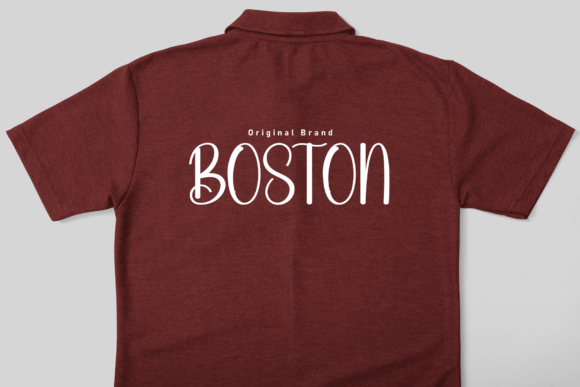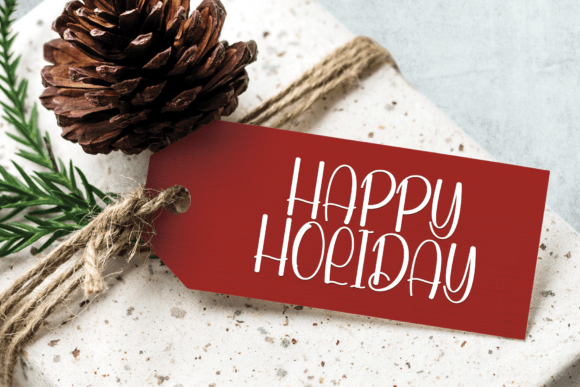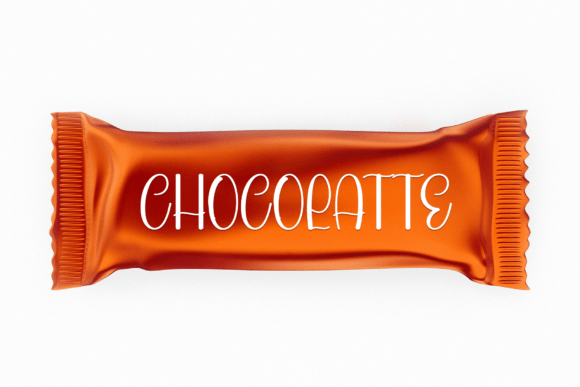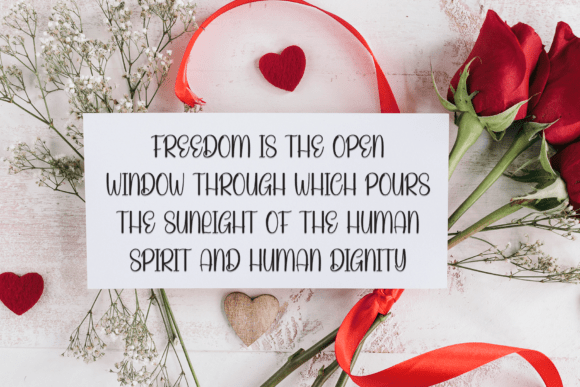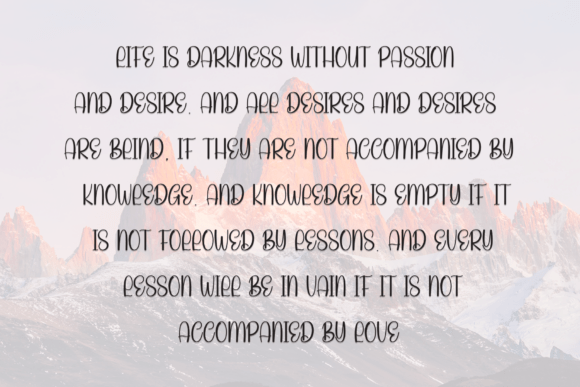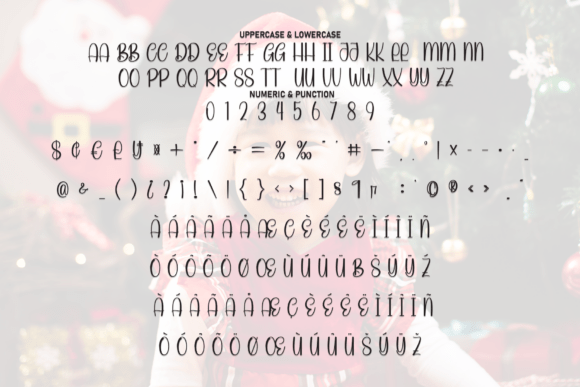
Introduction to Children Christmas Font
As designers, we’ve all been there – staring at a blank canvas, trying to spark the perfect idea for a creative project. The moment of inspiration finally hits, and you envision a beautiful design that screams joy and celebration. For many, this feeling is synonymous with the magic of the holiday season. Introducing the enchanting Children Christmas Font, a handcrafted display font that embodies the essence of merriness and liveliness.
With its whimsical charm and effortless elegance, this font is an invaluable design resource for any project that demands a touch of whimsy. Whether you’re crafting wedding invitations, holiday cards, or simply looking to add a dash of festive flair to your designs, the Children Christmas Font is sure to deliver. Its free download and transparent background make it an ideal choice for designers seeking a high-quality, versatile font that can elevate even the most mundane designs to new heights.
Key Features of Children Christmas Font
- High-quality, cursive font designed specifically for children’s Christmas projects
- Transparent background, allowing for easy layering and customization in creative projects
- Unique, hand-drawn style with a whimsical and festive feel, perfect for adding a personal touch to holiday projects
- Perfect for use in greeting cards, gift tags, posters, and other creative projects, making it a must-have design resource for the holiday season
Honest Review: Children Christmas Font
I recently stumbled upon the Children Christmas Font, and I must say it’s been a delightful addition to my design arsenal. This font is perfect for any creative project that requires a touch of festive magic. The font itself is incredibly versatile, making it suitable for a wide range of applications, from social media graphics to holiday cards.
What works well about this font is its playful, whimsical feel, which is sure to add a smile to any design. The high quality of the font ensures that it looks great in both digital and print formats, and the transparent background option gives designers complete control over the design process.
Here are some of the key features that make the Children Christmas Font stand out:
- High-quality design: The font is meticulously crafted to ensure that it looks great in any application.
- Transparent background: Gives designers complete control over the design process.
⚠️ One limitation of this font is that it may not be suitable for formal or professional projects, as it has a more playful tone.
Overall, I’m thoroughly impressed with the Children Christmas Font. It’s a fantastic design resource that’s perfect for anyone looking to add a touch of festive magic to their next creative project. ✨
Tips for Getting the Most Out of the Children Christmas Font
Use the Children Christmas Font to add a festive touch to your holiday designs. You can use it in conjunction with other design resources, such as images and graphics, to create a high-quality and visually appealing design. To get the most out of the font, use it in a creative project, such as a holiday card or a social media post.
The Children Christmas Font is a free download and can be used in a variety of design projects. Some common use cases include:
- Holiday cards and invitations
- Social media posts and graphics
- Printable art and decorations
- Children’s party invitations and decorations